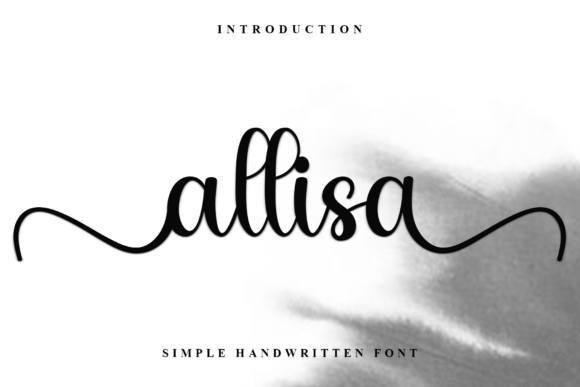
Discover the Charm of Allisa Font: A Casual and Creative Typeface
In the world of typography, fonts play a crucial role in conveying the tone and personality of a design. Among the numerous fonts available, Allisa Font stands out for its unique blend of warmth, friendliness, and playfulness. This article will delve into the characteristics, uses, and benefits of Allisa Font, exploring why it has become a popular choice for designers and non-designers alike.
What is Allisa Font?
Allisa Font is a casual and creative typeface that exudes a sense of warmth and friendliness. Its round, playful strokes create a relaxed and approachable feel, making it perfect for personal projects, invitations, and social media graphics. The font’s charming, hand-drawn aesthetic adds a fun and unique touch to any design, setting it apart from more formal and traditional typefaces.
Key Features of Allisa Font
- Casual and Creative: Allisa Font boasts a carefree and artistic vibe, ideal for designs that require a personal touch.
- Round and Playful Strokes: The font’s rounded edges and playful strokes create a soft and inviting appearance.
- Warm and Friendly: Allisa Font’s unique character makes it perfect for designs that aim to convey a sense of warmth and approachability.
Uses of Allisa Font
Allisa Font’s versatility makes it suitable for a wide range of design projects. Here are some of the most popular uses of this charming font:
Popular Use Cases
- Personal Projects: Allisa Font is perfect for personal branding, blogs, and social media graphics, adding a touch of warmth and personality to your online presence.
- Invitations and Events: The font’s playful and creative vibe makes it ideal for invitations, party decorations, and event branding.
- Social Media Graphics: Allisa Font’s casual and approachable feel makes it a great choice for social media graphics, including Facebook posts, Instagram stories, and Twitter headers.
- Digital Art and Illustration: The font’s hand-drawn aesthetic makes it a great fit for digital art and illustration projects, adding a unique and creative touch.
Benefits of Using Allisa Font
Allisa Font offers several benefits that make it a popular choice among designers and non-designers alike. Here are some of the advantages of using this charming font:
Why Choose Allisa Font?
- Easy to Read: Allisa Font’s clear and legible design makes it easy to read, even at smaller font sizes.
- Highly Versatile: The font’s versatility makes it suitable for a wide range of design projects, from personal branding to digital art.
- Unique and Creative: Allisa Font’s hand-drawn aesthetic adds a unique and creative touch to any design, setting it apart from more traditional typefaces.
Allisa Font is a charming and creative typeface that offers a unique blend of warmth, friendliness, and playfulness. Its versatility, compatibility, and ease of use make it a popular choice among designers and non-designers alike. Whether you’re working on a personal project, invitation, or social media graphic, Allisa Font is a great choice for adding a touch of personality and creativity to your design.
Final Thoughts
In conclusion, Allisa Font is a fantastic choice for anyone looking to add a personal touch to their design. Its unique character, versatility, and compatibility make it an excellent addition to any design project. So, go ahead and explore the creative possibilities of Allisa Font – your designs will thank you!